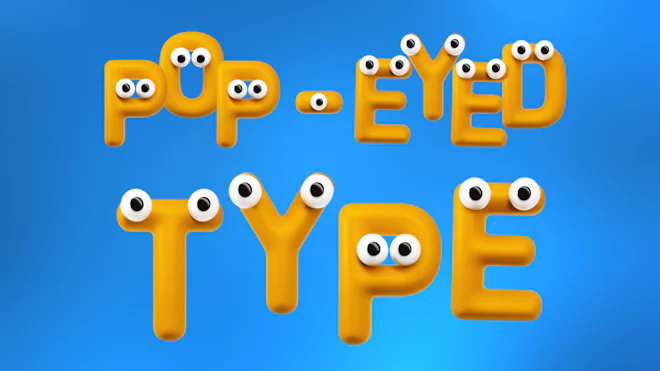
This stock motion graphics video pack features 49 different clips of humorous, pop-eyed typefaces on a transparent alpha channel, all set to a seamless loop.